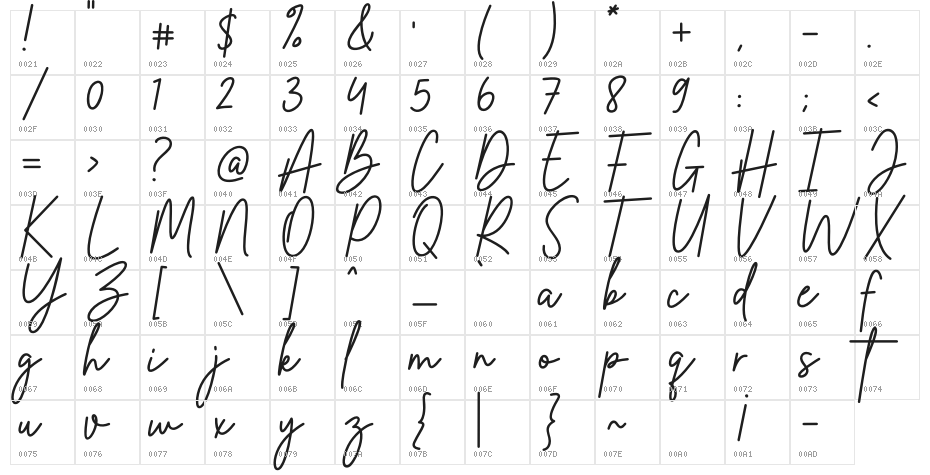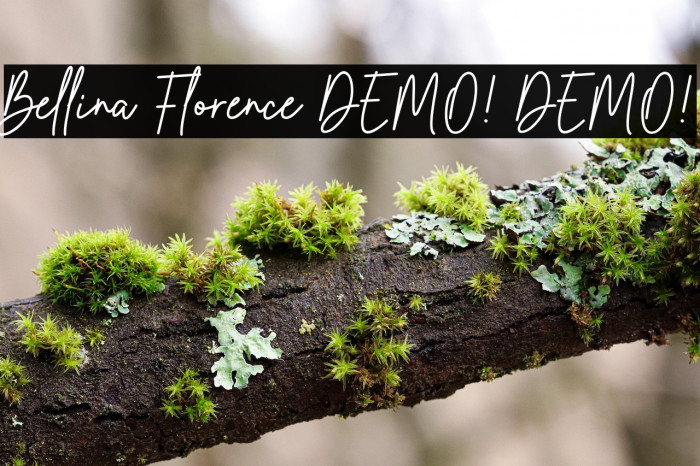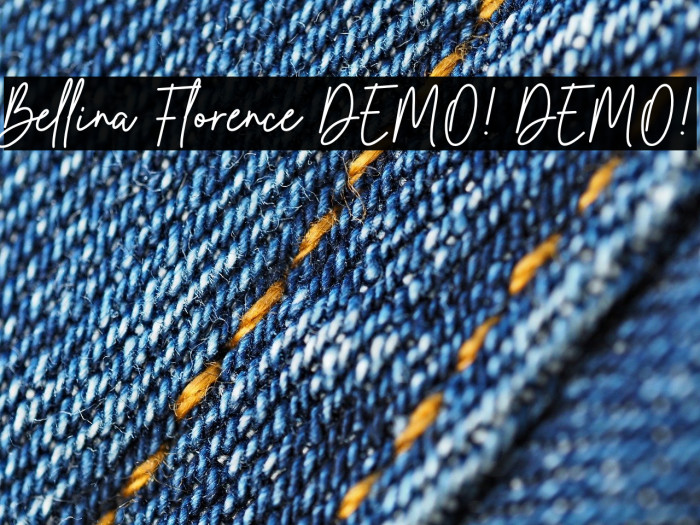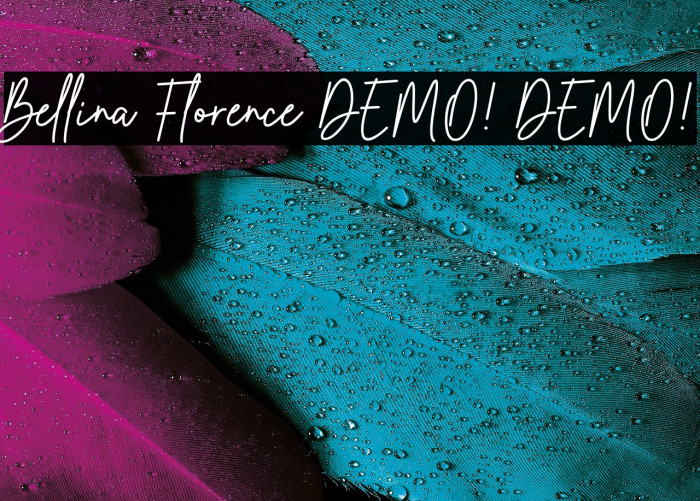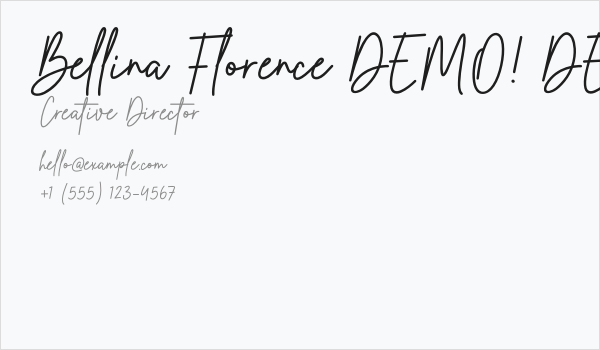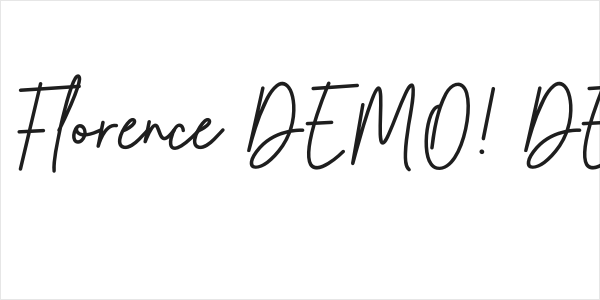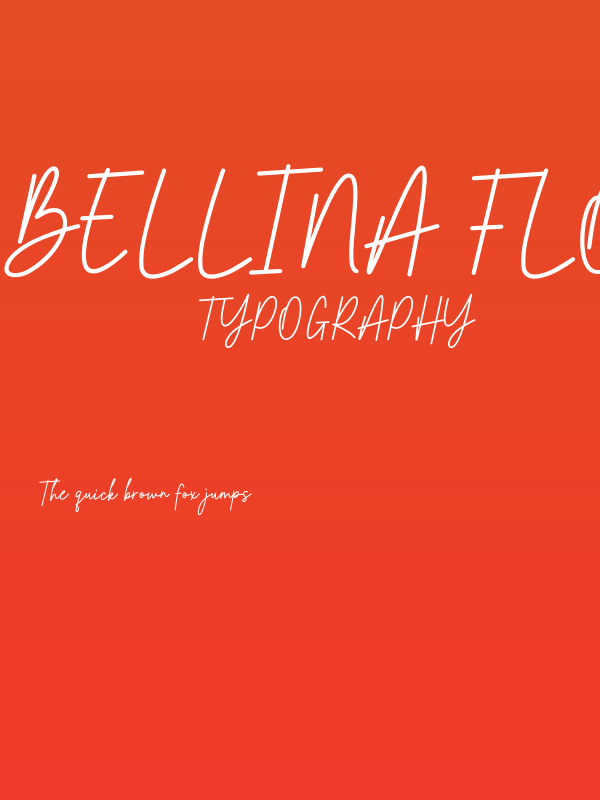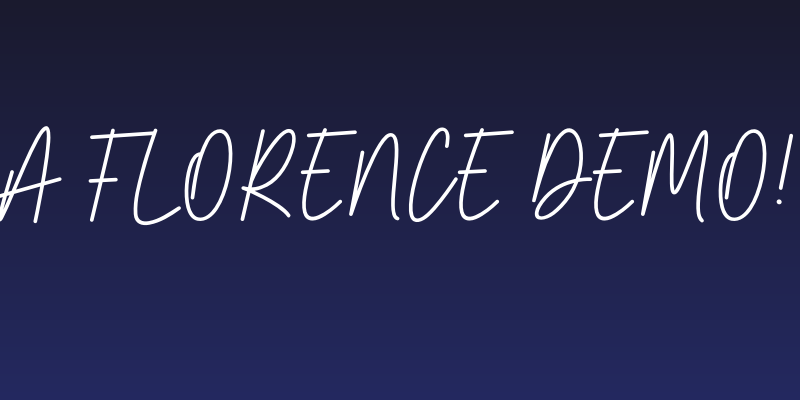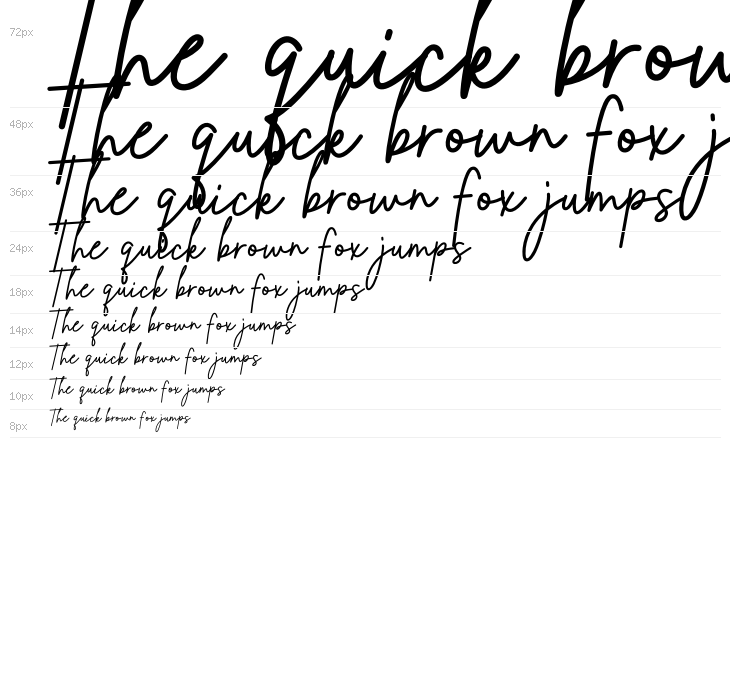
Bellina Florence DEMO! DEMO! Font
Bellina Florence DEMO! DEMO! Description
A casual, flowing handwritten script with tall ascenders, variable stroke thickness, and a natural, personal feel. The characters are loosely connected, with a playful and informal appearance, and the numerals and punctuation match the handwritten style.
Overall StyleDecorative, Casual, Modern
Use CaseLogos, Headlines, Invitations, Social Media
Proposed ProjectsInvitations, greeting cards, personal branding, quotes, social media graphics.